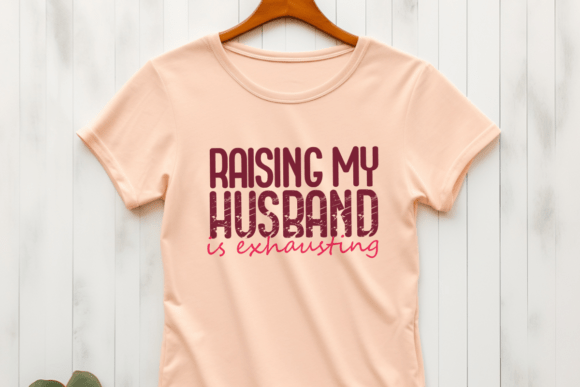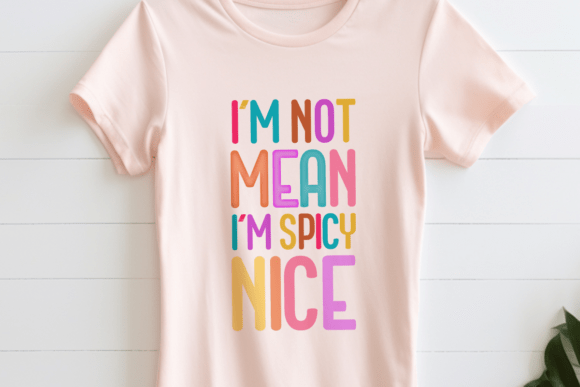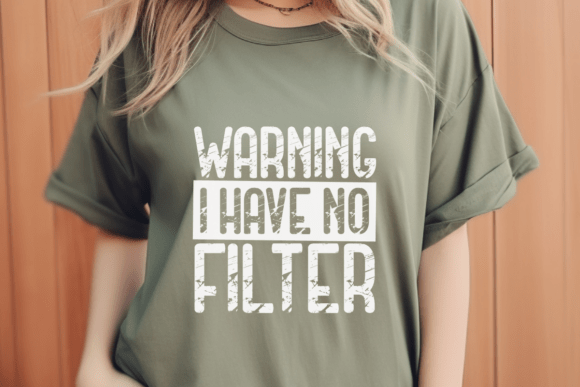
Introducing Funny Texture Font: The Ultimate Choice for Playful and Quirky Designs
Are you a designer or crafter looking for a font that can add a touch of fun and retro personality to your designs? Look no further than Funny Texture Font, a bold and playful sans serif font duo that’s perfect for creating eye-catching designs that stand out from the crowd.
What is Funny Texture Font?
Funny Texture Font is a font duo that consists of two styles: a clean regular style and a textured distressed version. The clean regular style is perfect for designs that need a bold and modern look, while the textured distressed version adds a touch of grunge and retro personality to your designs.
Key Features of Funny Texture Font
- Bold and Playful: Funny Texture Font is a bold and playful sans serif font that’s perfect for creating eye-catching designs.
- Clean Regular Style: The clean regular style is perfect for designs that need a modern and sleek look.
- Textured Distressed Version: The textured distressed version adds a touch of grunge and retro personality to your designs.
- Easy to Read: Despite its bold and playful style, Funny Texture Font is easy to read, making it perfect for designs that need to communicate a message.
- Versatile: Funny Texture Font is a versatile font that can be used for a wide range of designs, from print-on-demand products to posters and printable quotes.
Who is Funny Texture Font for?
Funny Texture Font is perfect for designers and crafters who want to create quirky and standout products. Here are some examples of who can benefit from using Funny Texture Font:
Use Cases for Funny Texture Font
Funny Texture Font is a versatile font that can be used for a wide range of designs. Here are some examples of use cases:
- T-Shirts: Funny Texture Font is perfect for designing t-shirts that need a bold and playful look.
- Mugs: Add a touch of fun and personality to your mug designs with Funny Texture Font.
- Stickers: Funny Texture Font is a great choice for designing stickers that need to stand out.
- Tote Bags: Create unique and eye-catching tote bag designs with Funny Texture Font.
- Posters: Funny Texture Font is perfect for designing posters that need a bold and playful look.
- Funny Printable Quotes: Add a touch of fun and personality to your printable quotes with Funny Texture Font.
Why Choose Funny Texture Font?
There are many fonts available that offer a similar style to Funny Texture Font, but here are some reasons why Funny Texture Font stands out:
- Unique Style: Funny Texture Font offers a unique style that’s both bold and playful.
- High-Quality: Funny Texture Font is a high-quality font that’s designed to deliver crisp and clear results.
In conclusion, Funny Texture Font is a bold and playful sans serif font duo that’s perfect for designers and crafters who want to create quirky and standout products. With its clean regular style and textured distressed version, Funny Texture Font offers a unique style that can add a touch of fun and retro personality to your designs. Whether you’re a print-on-demand artist, Etsy seller, sublimation designer, or Cricut crafter, Funny Texture Font is a great choice for creating eye-catching designs that stand out from the crowd.